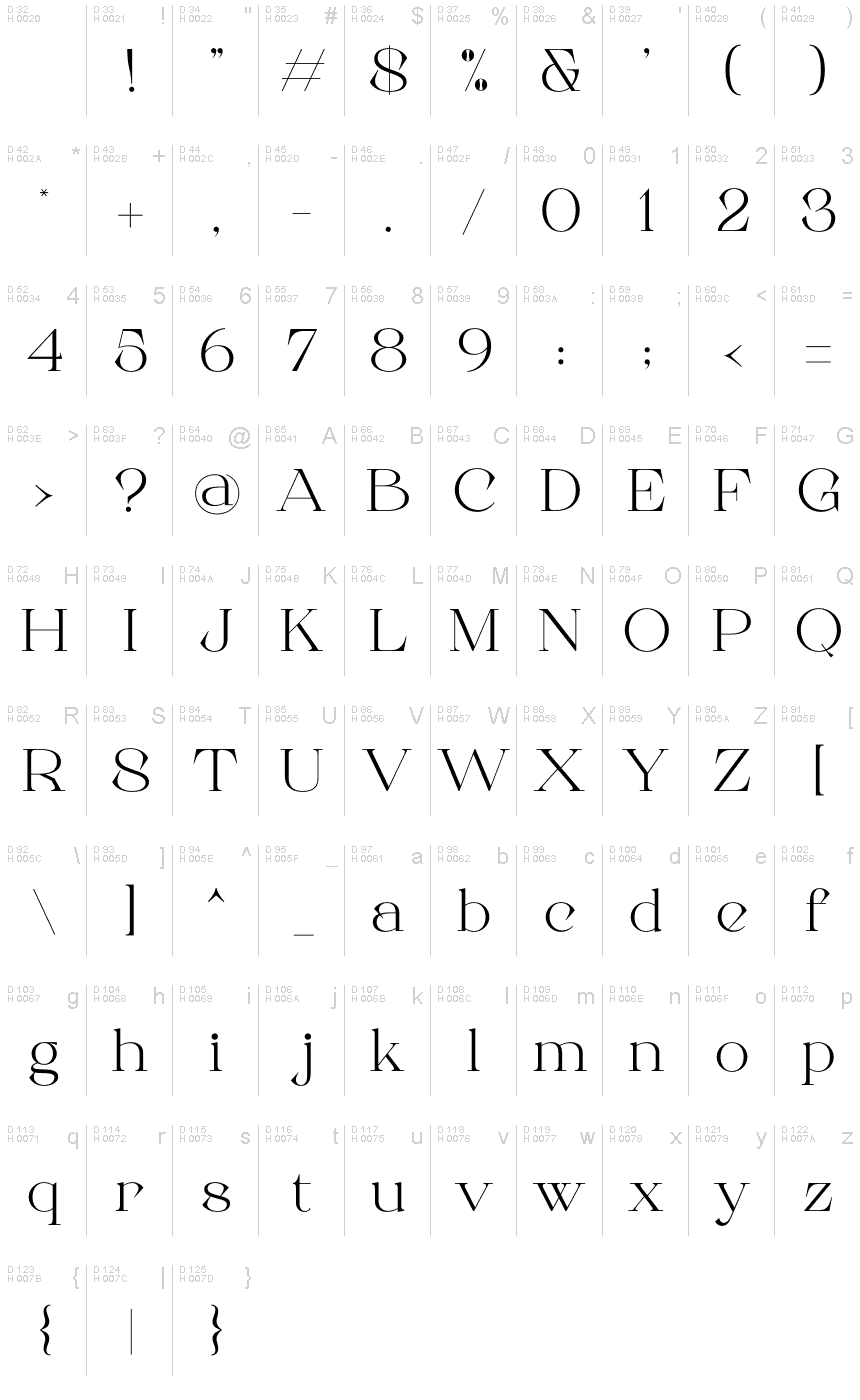
Roman Sophisticated
Roman Sophisticated, designed by BrandSemut, is a captivating serif font that exudes elegance and refinement. With its semi-light weight and semi-expanded width, it strikes the perfect balance between sophistication and readability.
This versatile font is ideal for projects that require a touch of class, such as wedding invitations, high-end fashion magazines, luxury branding, or art galleries. Its crisp lines and timeless appeal make Roman Sophisticated a go-to choice for any design seeking to convey an air of prestige and refinement.